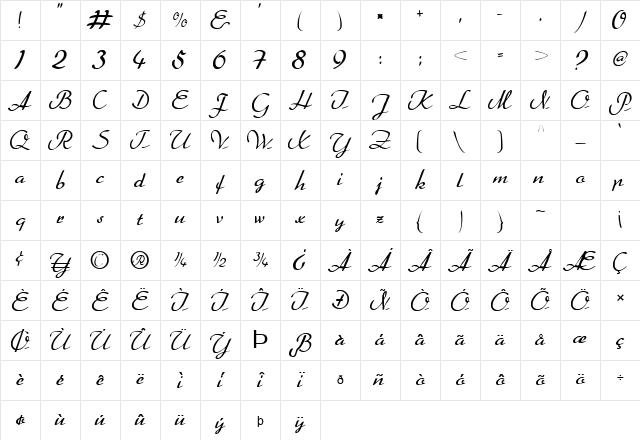
LA Bold Normal
Design Context for LA Bold
LA Bold is a composed and adaptable typeface that performs quietly and consistently across a wide range of design contexts. Its bold stroke weight gives it real presence on the page.